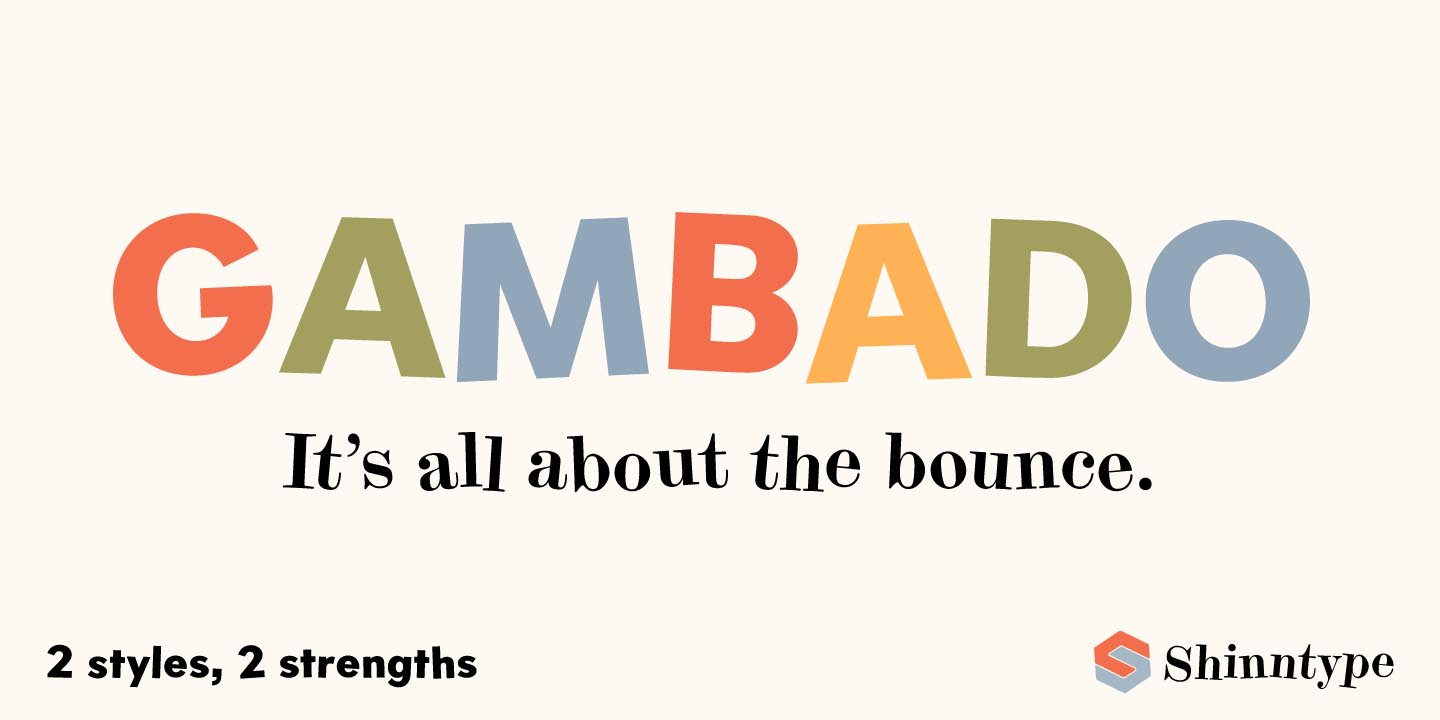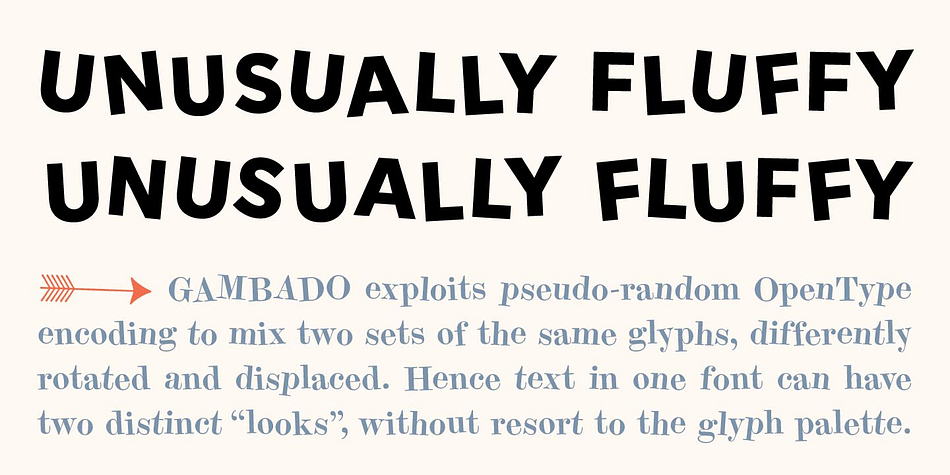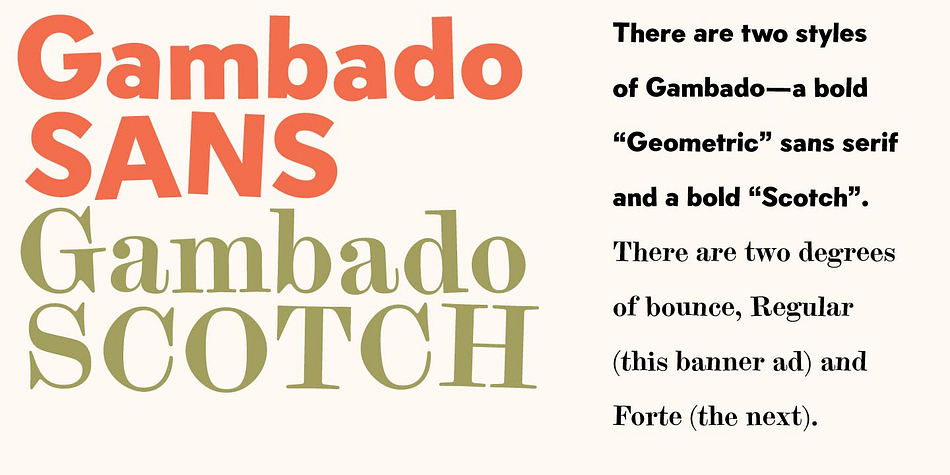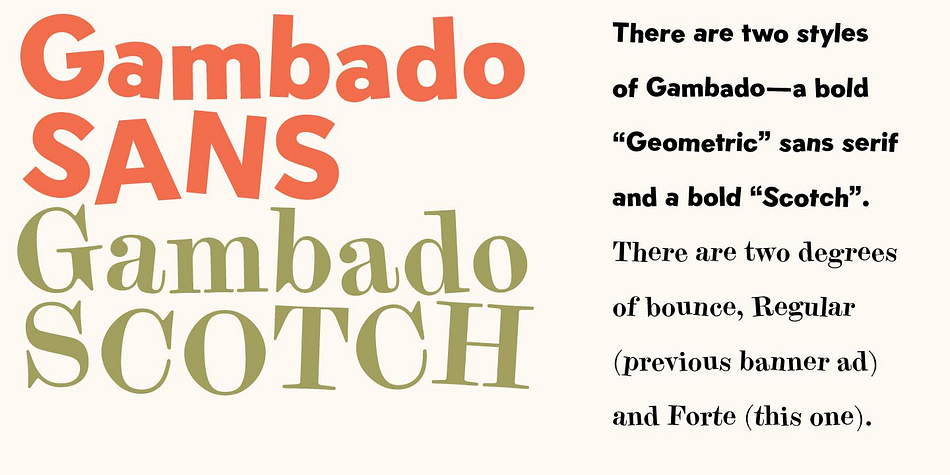
Designed by Nick Shinn, Gambado is a sans serif and serif font family. This typeface has four styles and was published by Shinntype.
‘Bounced’ is the technical (!) term for a higgledy-piggledy style of lettering in which characters are shaken up by a combination of rotation and vertical displacement from the presumed norm of upright stance on a baseline. Now, by utilizing pseudo-random contextuality in the OpenType format, Nick Shinn has created complex, default bouncing automatically through the agency of a font, rather than letter-by-letter manual adjustments at the layout level.